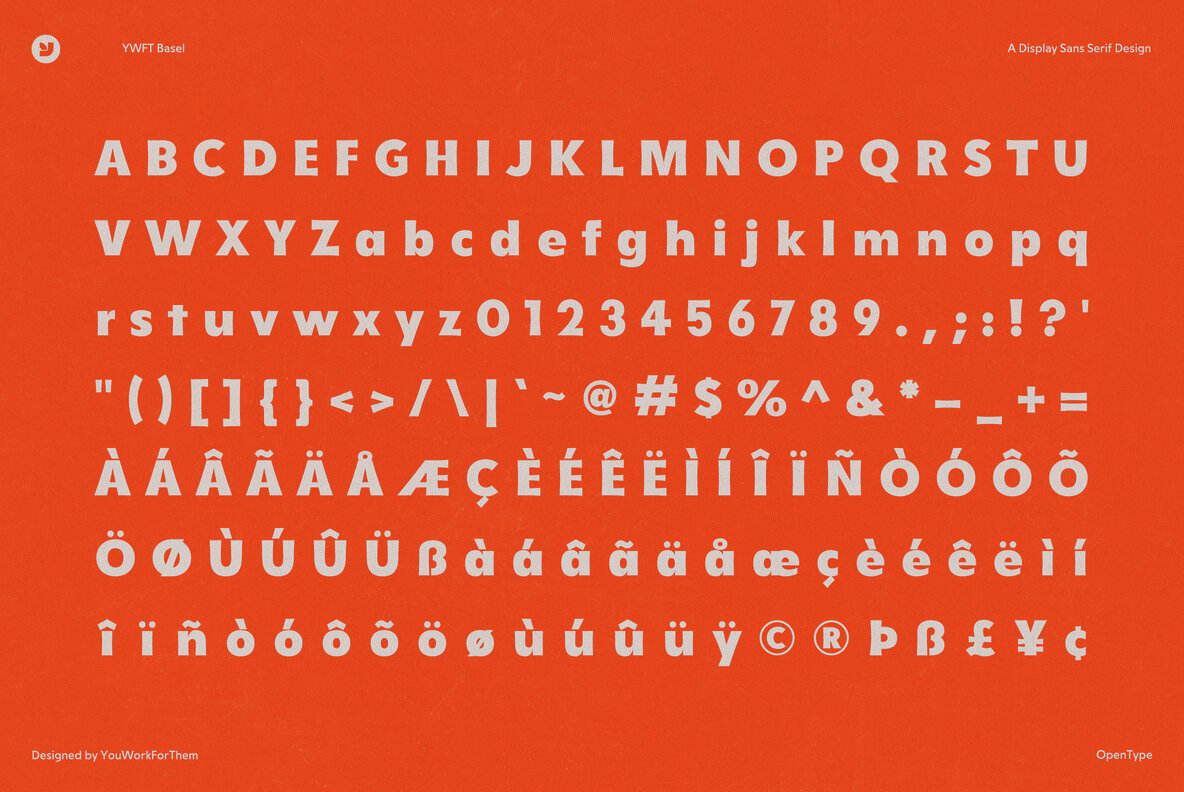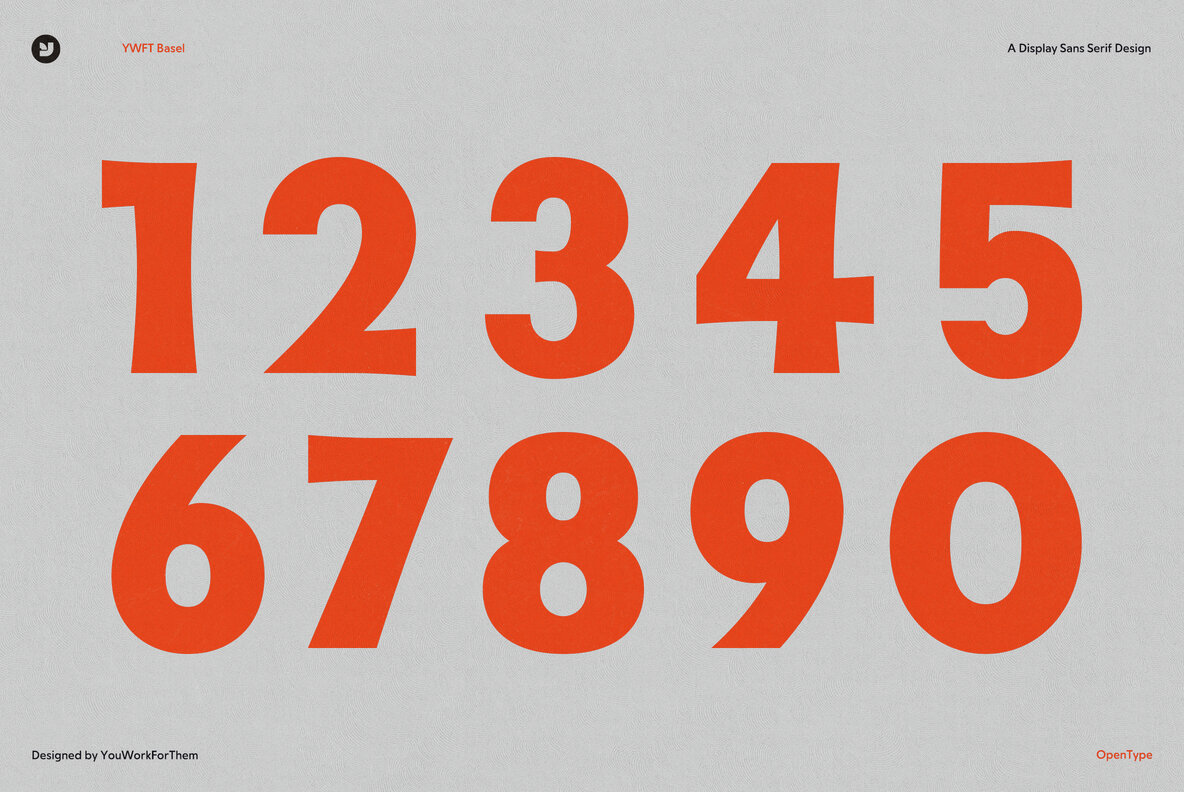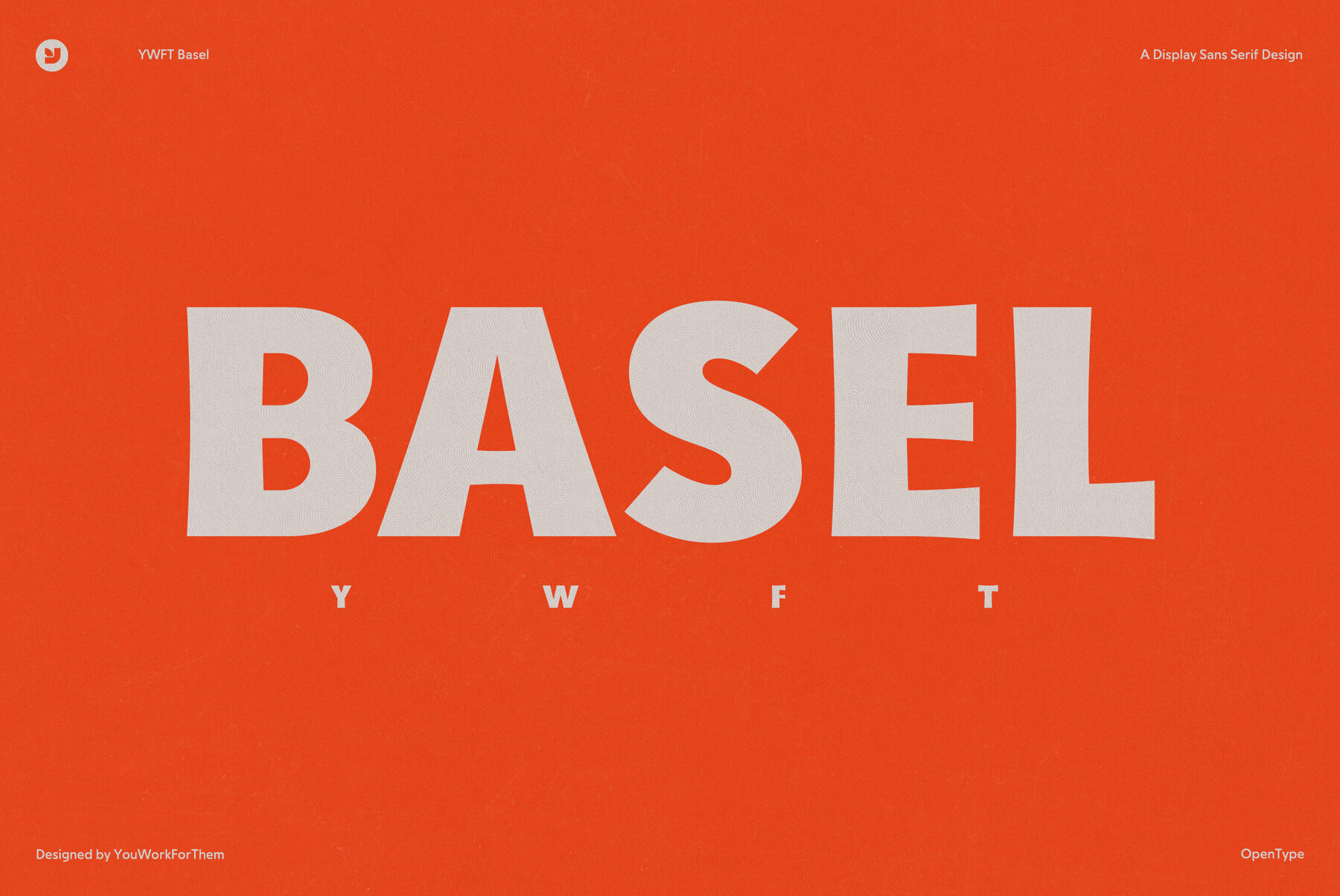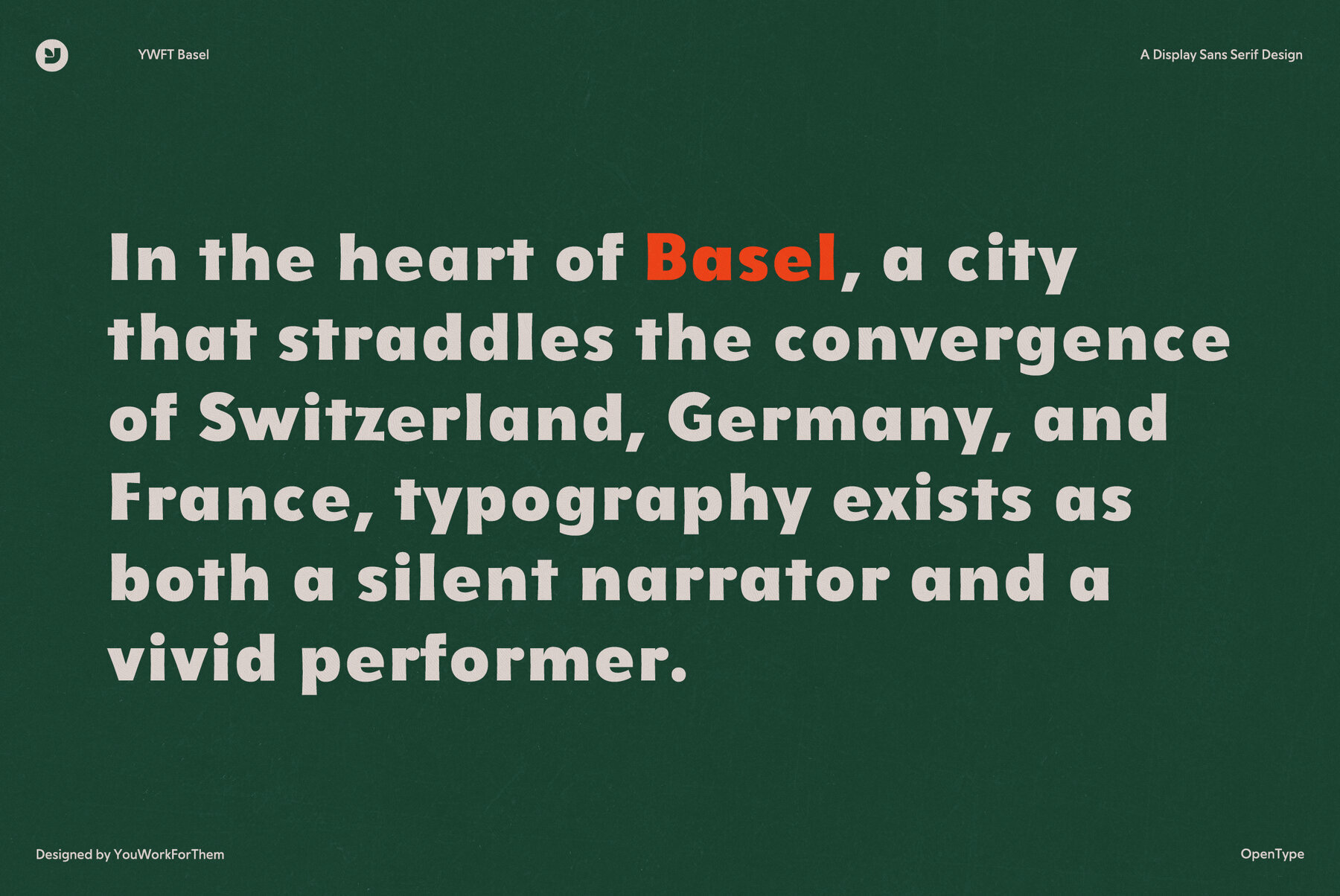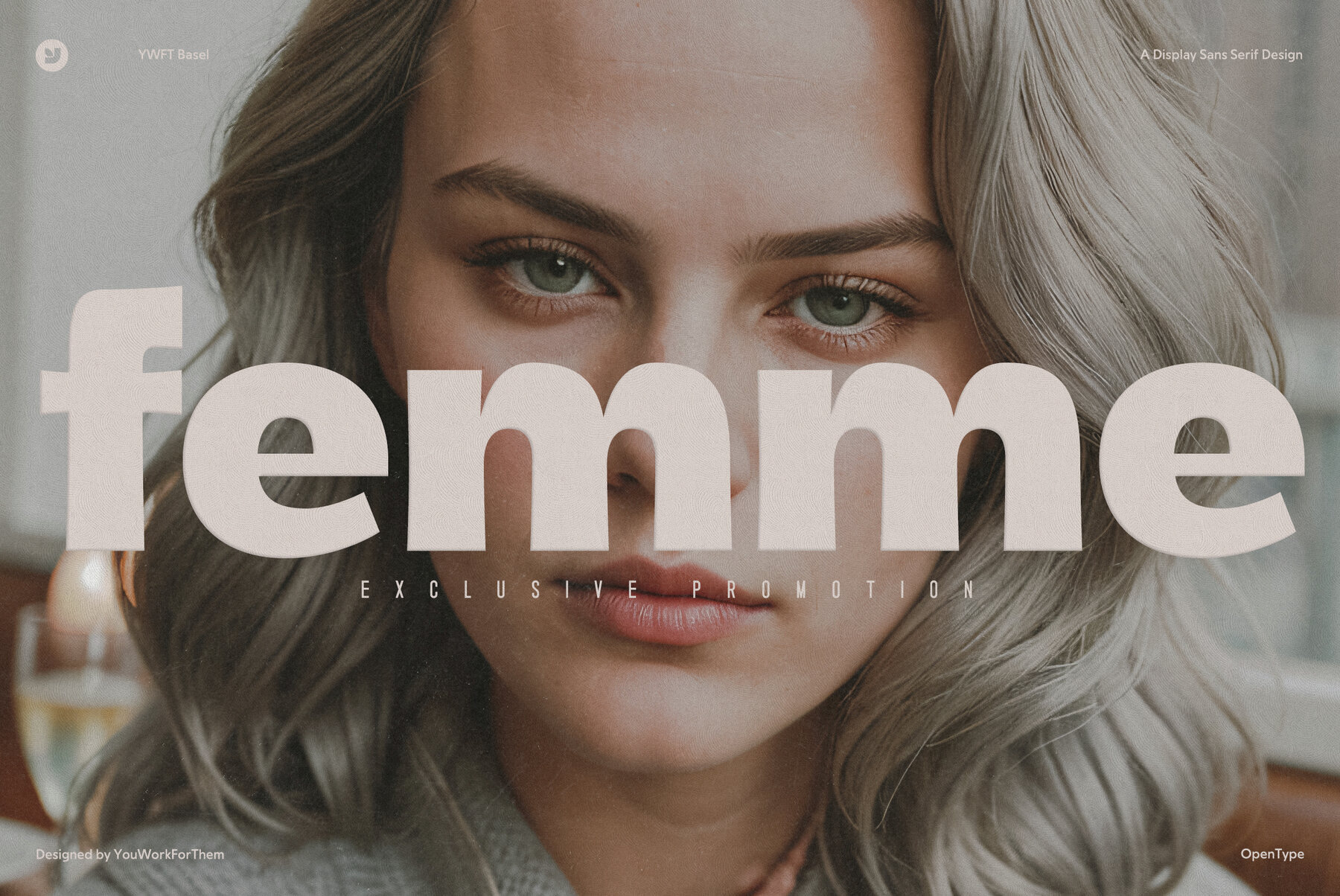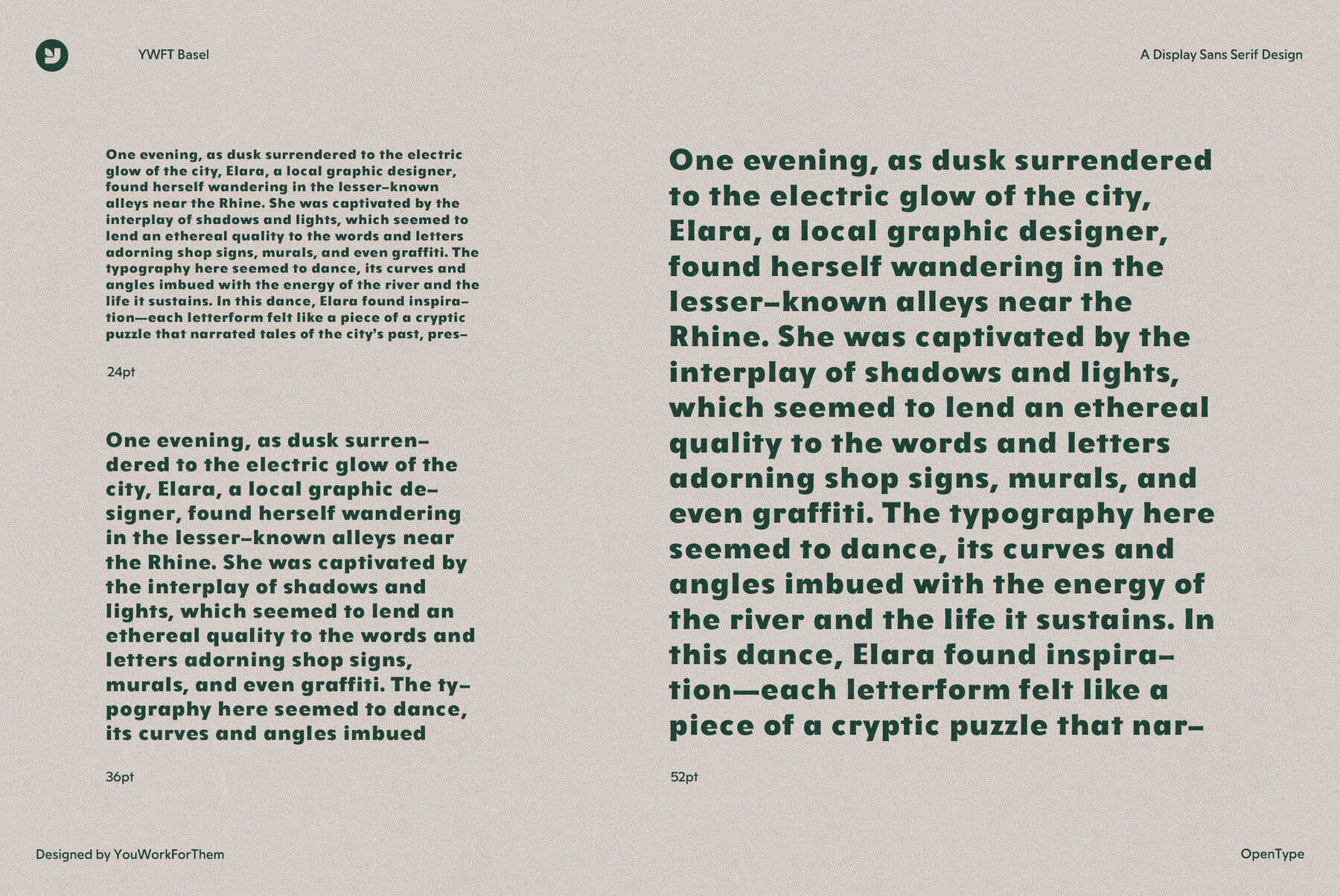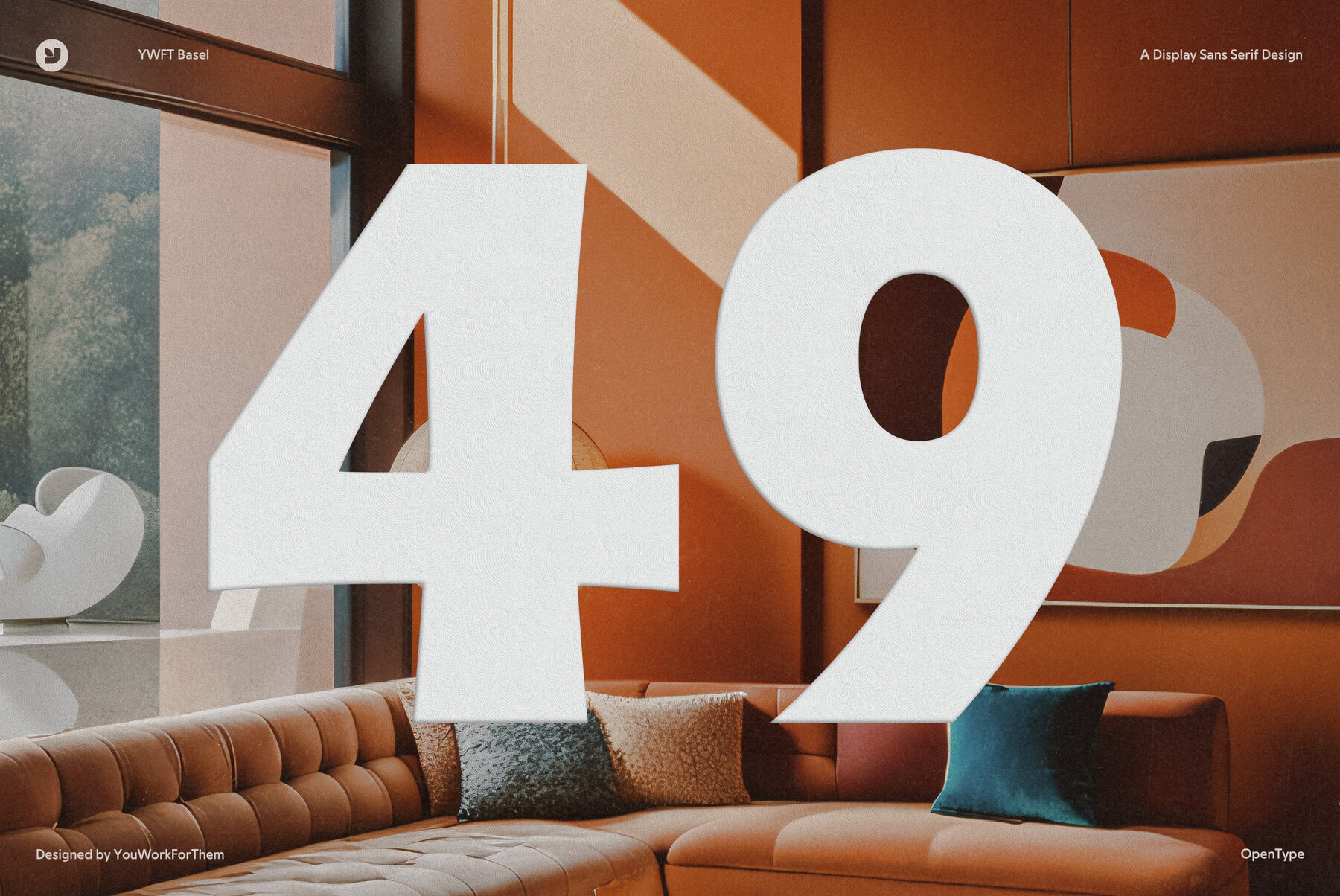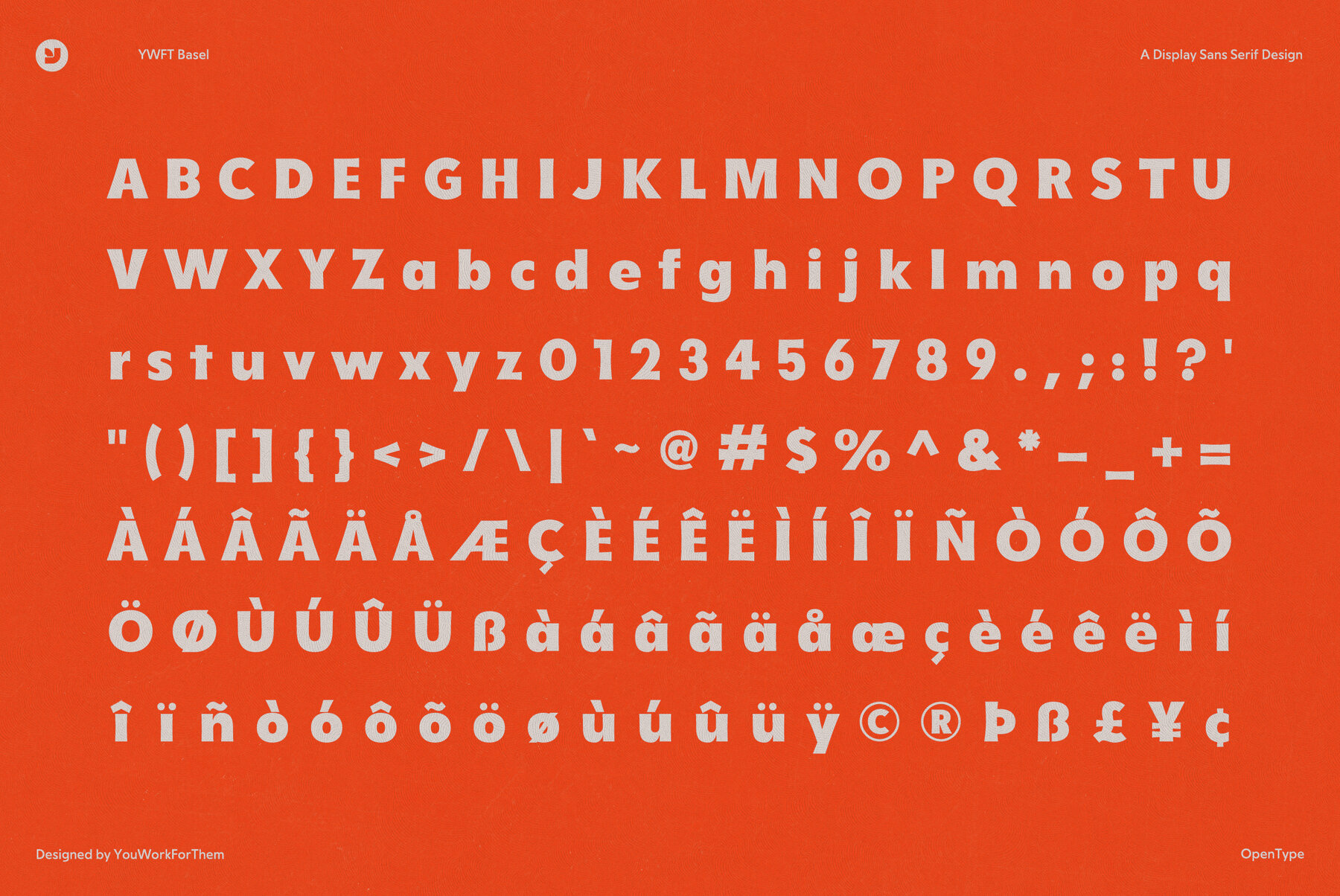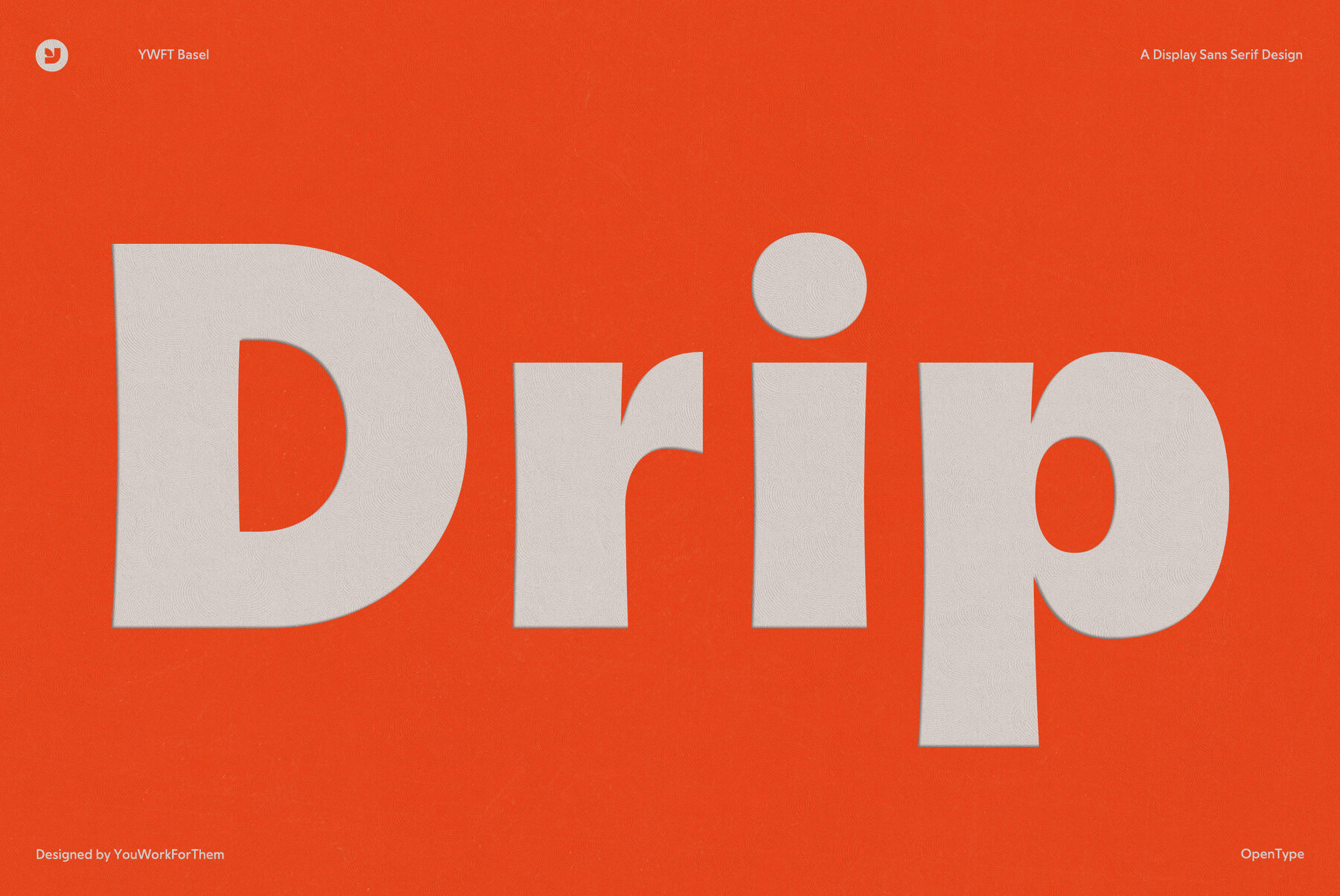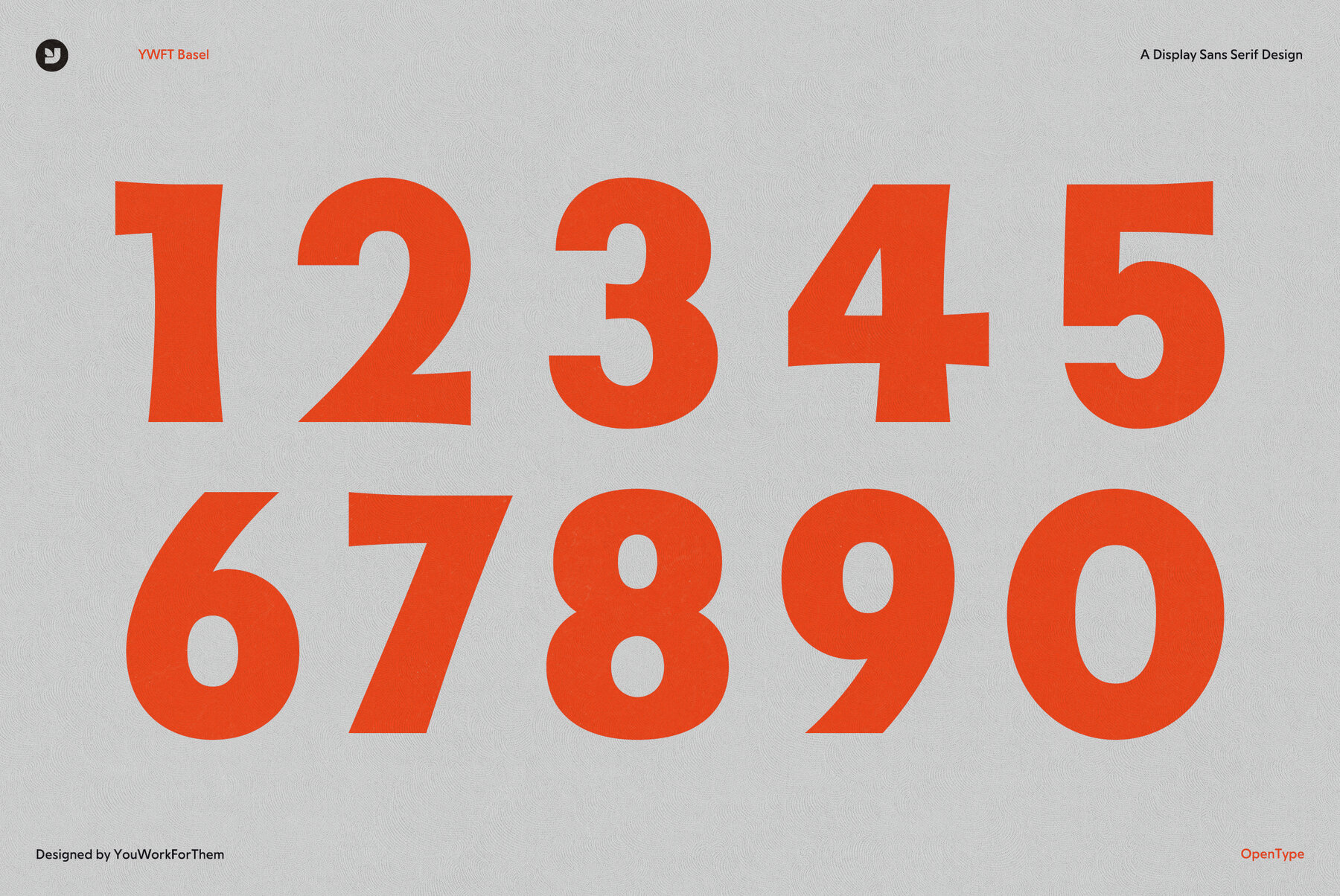
YWFT Basel
Foundry: Travis Stearns for YouWorkForThem
YWFT Basel is a heavy sans-serif font that began as a revival of the metal type Spartan Black, an American copy of Futura developed in 1936. The final release of YWFT Basel ultimately took on a character of its own, resulting in one of more unique type designs at YWFT. The upright strokes are flared slightly, as in Optima; at smaller sizes this feature is almost undetectable, at larger there is a unique optical play between the letter spaces. YWFT Basel works best when used for display, identities, and headline copy.